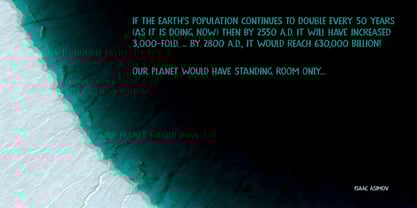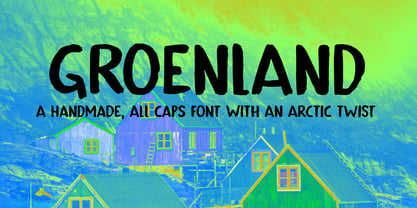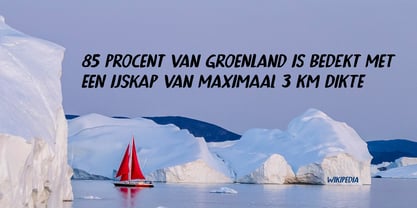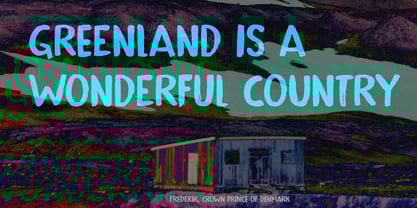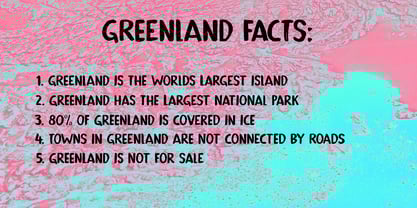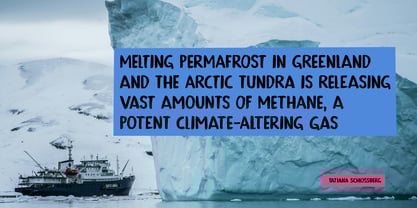
Groenland
by Hanoded
The Groenland Font Family was designed by David Kerkhoff and published by Hanoded. Groenland contains 2 styles and family package options. More about this family
Groenland is the Dutch name for Greenland. It means exactly that: Green Land. In Danish it is called Grønland (Green Land) and in Greenlandic it is called Kalaallit Nunaat, which translates as ‘land of the Greenlanders’. I guess the Greenlanders are right!
I haven’t visited Greenland, but I would love to! Maybe somewhere in the near future.
Groenland is a hand painted font. It is fat, eroded, very clear and easy to read. Use it for your posters, your websites and your product packaging. Or a sign that reads ‘Not for sale’.. ;-)
Groenland comes with extensive language support and a set of automatically rotating alternates.
Designers: David Kerkhoff
Foundry: Hanoded
About Hanoded
Hanoded is run by Dutchman David Kerkhoff. His fonts are a mishmash of styles, as he just creates whatever pops into his head. You will find a lot of brush fonts in his collection, as his favourite tools are brushes and Chinese ink, with cartoon style fonts and script fonts complementing his repertoire. Aside from making fonts, David occasionally guides tours in far-flung places, renovates his '30's house and tries reasoning with his wife and (teenage) kids. Not an easy task!